Adventure games are known for their immersive worlds, captivating narratives, and unforgettable experiences. Whether you’re designing an action-packed fantasy game or an interactive mystery, fonts play a crucial role in shaping the atmosphere of your game. They help convey the tone, emotion, and personality of your game world. The right font can make a significant difference in how players perceive your game.
In this article, we’ll discuss the importance of fonts in adventure games and recommend five adventure game fonts that will make your game stand out. Let’s dive in!
The Role of Fonts in Adventure Games
1. Setting the Mood
Fonts in adventure games can help establish the mood of the game. Whether you’re crafting a thrilling escape room experience or a whimsical fairy tale, the right font can instantly communicate the vibe of the game. A bold, angular font can suggest danger and excitement, while a delicate, flowing script can evoke mystery and elegance.
2. Enhancing the Narrative
Fonts also help convey the story of your game. The typography used in titles, dialogue boxes, and in-game text reflects the time period, setting, and character personalities. For example, a medieval fantasy adventure game may benefit from fonts with old-world charm, while a modern-day mystery might use clean, sleek fonts to create a more contemporary feel.
3. Making the Game More Engaging
Fonts are more than just a functional aspect of your game. They are an essential part of your visual design, helping to create an engaging, immersive experience. A font that complements the art direction and overall aesthetic of the game can enhance player engagement and make the game feel more polished.
Top 5 Adventure Game Fonts to Use
Now that we’ve established why fonts are so important in adventure games, let’s take a look at five adventure game fonts that will help your game stand out.
1. Floomie
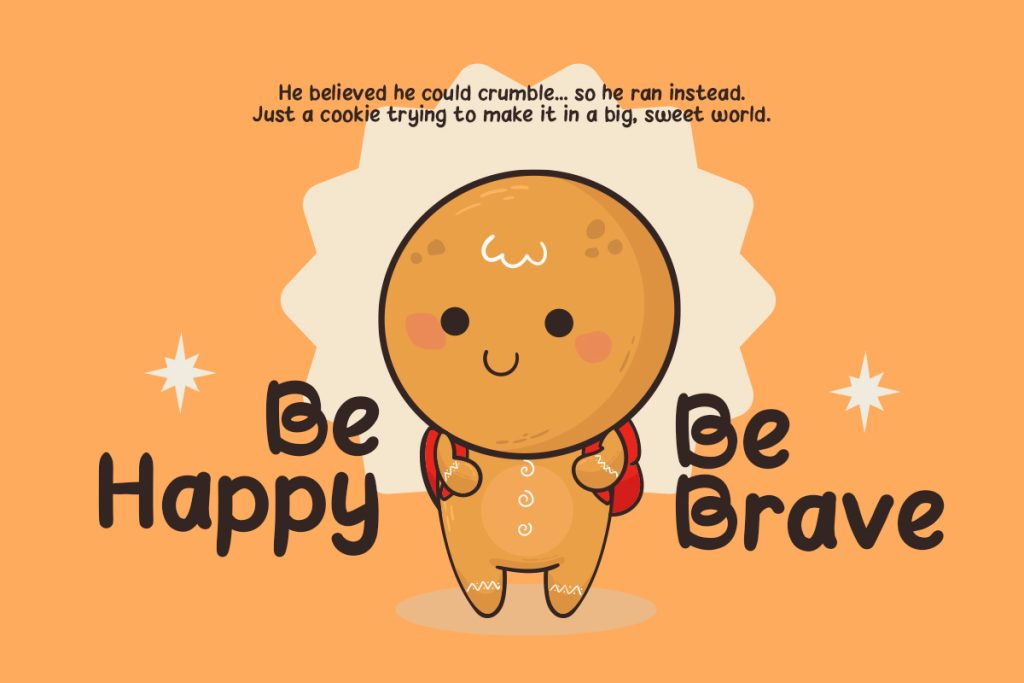
Font Overview:
Introducing Floomie, a joyful kids’ handwriting font that captures the warmth and wonder of childhood. With its playful, hand-drawn letterforms, Floomie adds an authentic, joyful touch to any project, perfect for designs that need heart, creativity, and a personal, handcrafted feel.
Why It’s Great for Adventure Games:
- Great for titles, menus, and in-game text.
- Perfect for games with a warm and wonderful atmosphere.
- The playful nature of the font adds a sense of fun and joy to the game.
Use Case:
Floomie would be ideal for an adventure game set in a magical forest, a candy kingdom, or a world of fantastical desserts. Its light, bubbly character style will immediately give players a sense of wonder and adventure.
2. Joylet
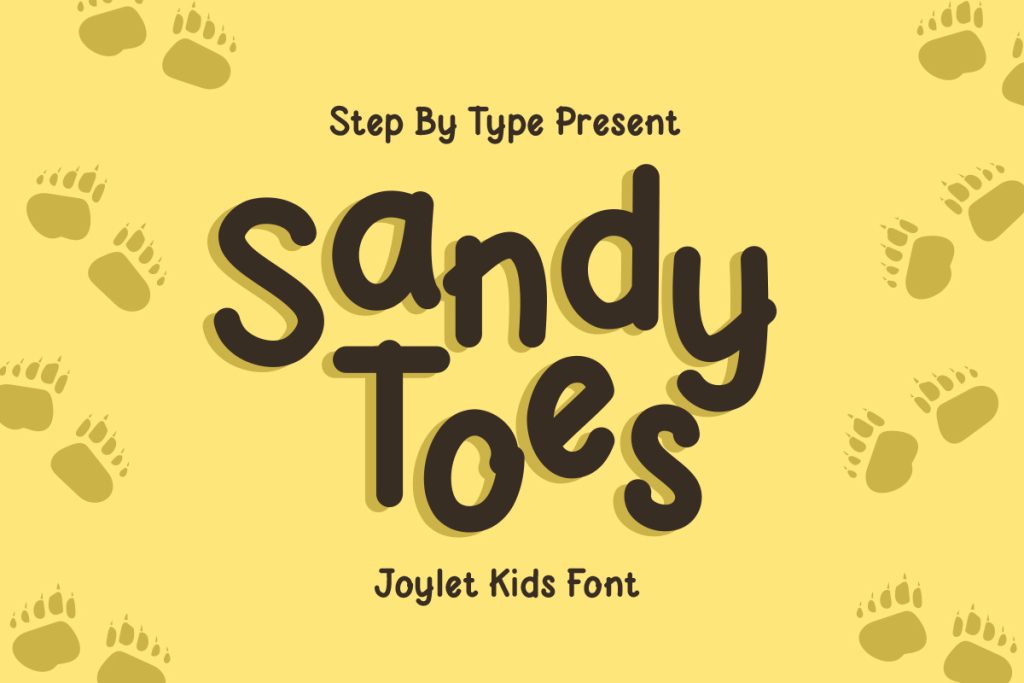
Font Overview:
Joylet is a kids’ handwriting font that radiates pure joy, playfulness, warmth, and youthful energy. With soft curves and a friendly flow, it’s designed to feel like it came straight from a child’s sketchbook, yet polished enough for professional use.
Perfect for adding a charming, handmade touch to everything from classroom resources to brand visuals.
Why It’s Great for Adventure Games:
- Joyful energy for child-focused content.
- Subtle quirks mimic a natural kid’s handwriting.
- Easily readable while maintaining a sense of playfulness.
Use Case:
Joylet is perfect for fun, adventurous stories about animals exploring nature.
3. Ranventure
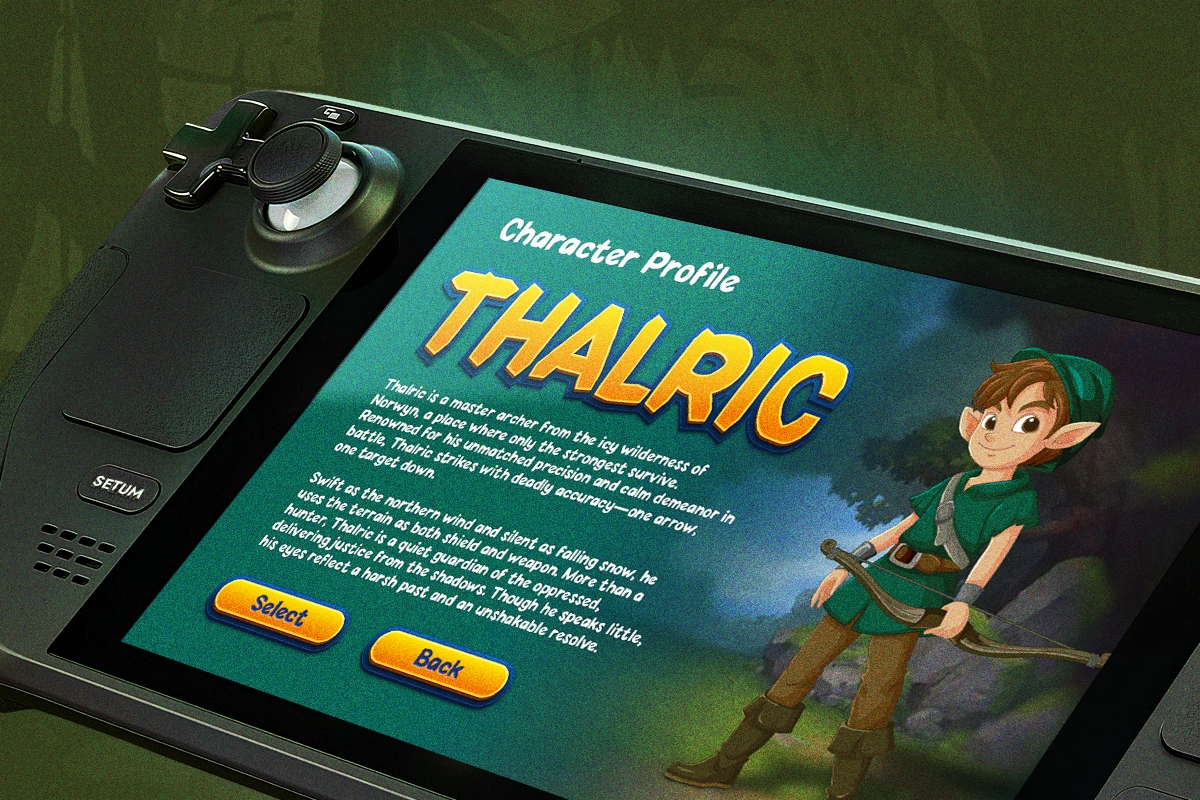
Font Overview:
Ranventure is a bold, dynamic font designed for high-action and fast-paced adventure games. Its strong, angular lines give it a rugged feel, making it perfect for action-packed games that involve physical challenges, daring escapades, or epic quests. Whether you’re designing a survival adventure or a heroic journey, Ranventure will inject your game with energy and excitement.
Why It’s Great for Adventure Games:
- Bold and energetic, ideal for action-heavy or survival-themed games.
- The strong, rugged design makes it stand out in both large titles and in-game text.
- Works well with intense, cinematic storytelling.
Use Case:
Ranventure is perfect for a high-stakes adventure game where players are on a quest to save the world, navigate a dangerous wilderness, or face formidable enemies. Its boldness makes it an excellent choice for anything that needs to exude power and excitement.
4. Refanok
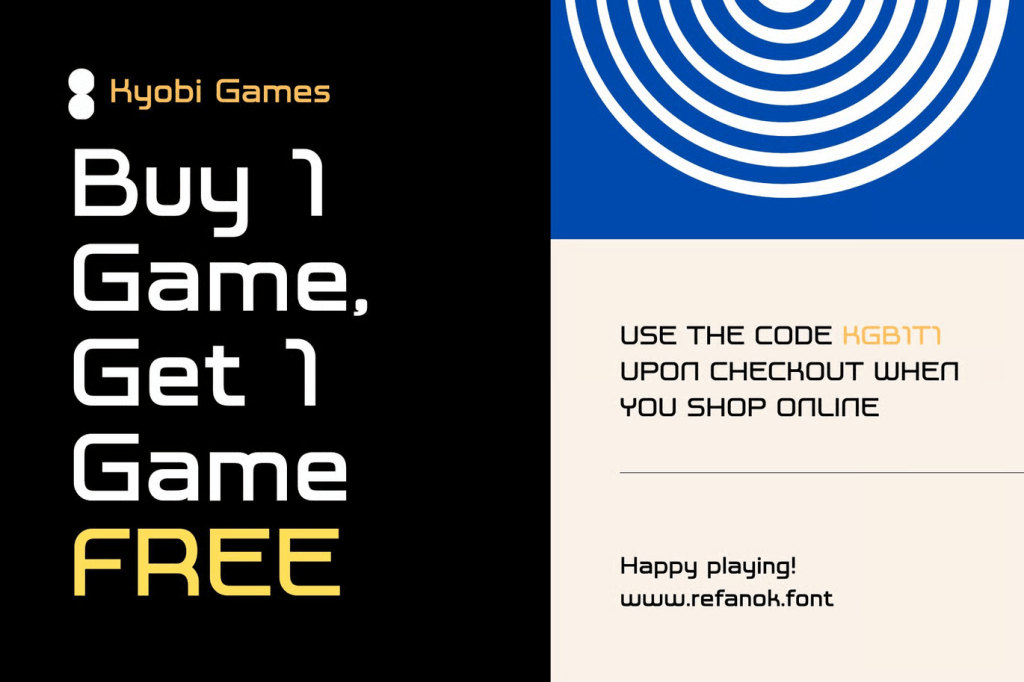
Font Overview:
Refanok is a striking, modern font designed to evoke a sense of adventure, making it an excellent choice for games with a futuristic or action-packed theme. With its sharp, geometric style, Refanok stands out with clean, bold lines that make it perfect for dynamic, high-energy game titles or interactive text in fast-paced adventure games. Whether you’re designing a sci-fi thriller or a high-tech quest, Refanok’s bold design will keep players engaged and immersed in the experience.
Why It’s Great for Adventure Games:
- Ideal for high-tech, action-driven games that require a bold and impactful font.
- The futuristic, clean lines convey a sense of speed, adventure, and modernity.
- Works well in both large-scale titles and smaller in-game text, ensuring clarity and visibility.
Use Case:
Refanok is perfect for an adventure game where players embark on a high-speed chase through digital landscapes, solve intricate puzzles in futuristic cities, or navigate through technological challenges. Its strong, modern aesthetic enhances the excitement and urgency of the game, making it a perfect match for a cutting-edge game world.
5. Woodzy
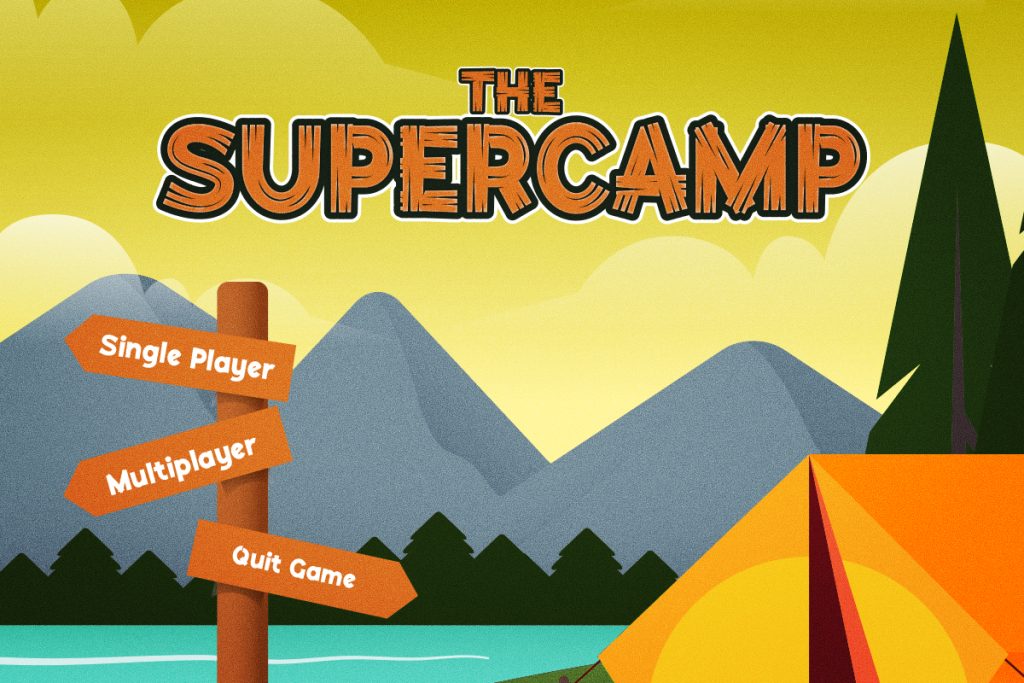
Font Overview:
Woodzy is a rustic, nature-inspired font that features rough, hand-drawn lettering. It evokes the feeling of being in the great outdoors and is perfect for adventure games set in forests, mountains, or rural landscapes. If your game revolves around survival, nature exploration, or environmental storytelling, Woodzy will seamlessly fit into your design.
Why It’s Great for Adventure Games:
- Perfect for games set in nature, wilderness, or rustic environments.
- Adds an earthy, grounded feel to the game, ideal for titles focused on survival or environmental exploration.
- Works well in both titles and in-game text, particularly for outdoor or rustic-themed settings.
Use Case:
Woodzy is ideal for an adventure game where players explore the forest, climb mountains, or survive in the wilderness. Its natural, rugged design makes it the perfect match for a game focused on the environment or outdoor survival.
If you’re interested in video games, you can read the article “What Are Video Game Fonts? A Complete Guide for Designers.” You can also read the article “Action Game Fonts That Add Energy to Your Visual Identity” for additional font references.
Conclusion: The Power of Fonts in Adventure Games
Fonts are more than just decorative elements in adventure games; they are powerful tools that help convey the game’s atmosphere, tone, and narrative. The right font can transform a simple title screen into an immersive experience, set the mood for the game world, and even tell a story all on its own.
With the five fonts we’ve recommended, Floomie, Joylet, Ranventure, Refanok, and Woodzy, you’ll have the perfect typographical tools to make your adventure game stand out. No matter the genre or setting, the right font can make all the difference in creating an engaging, memorable adventure for your players.